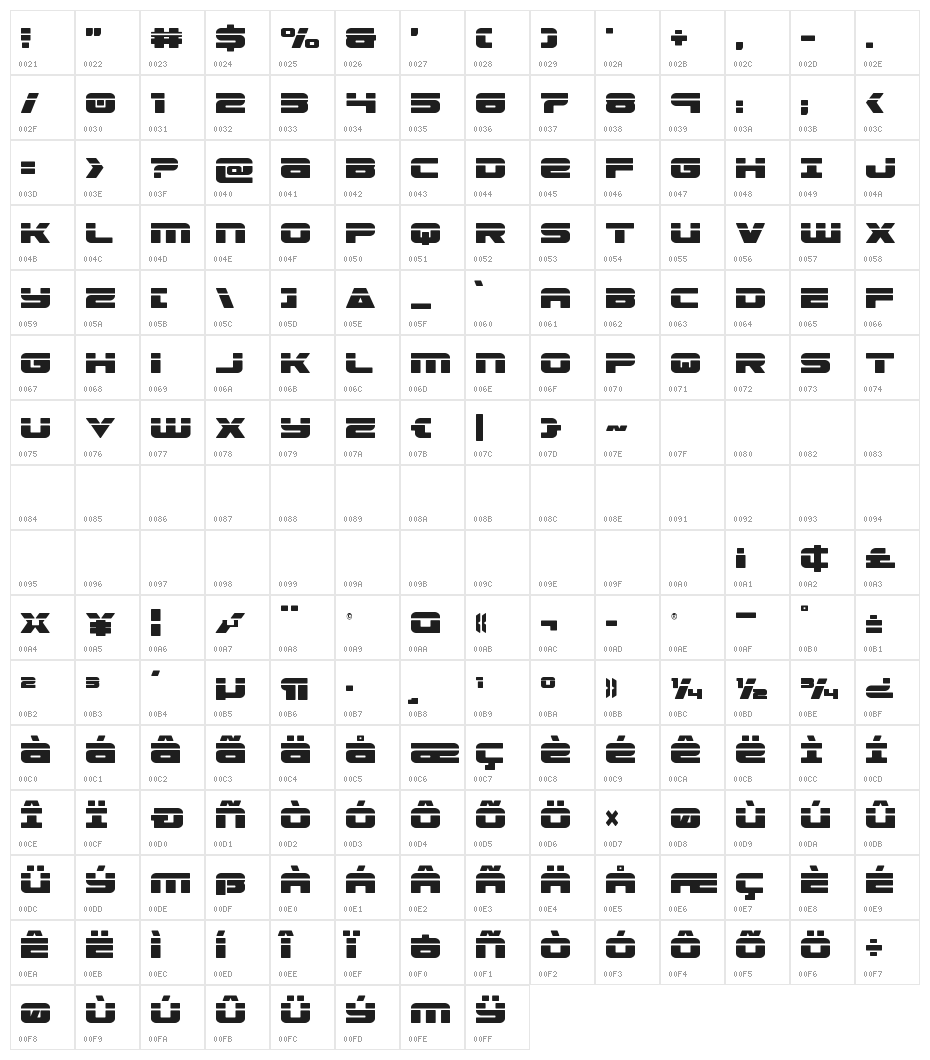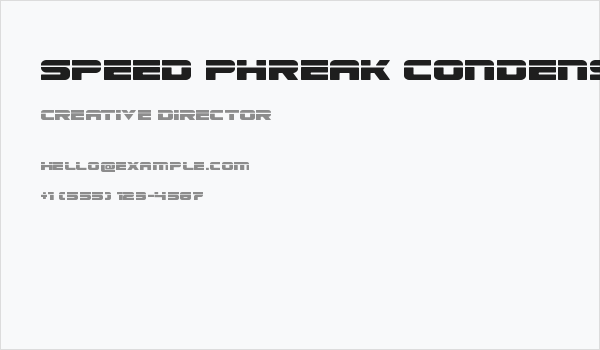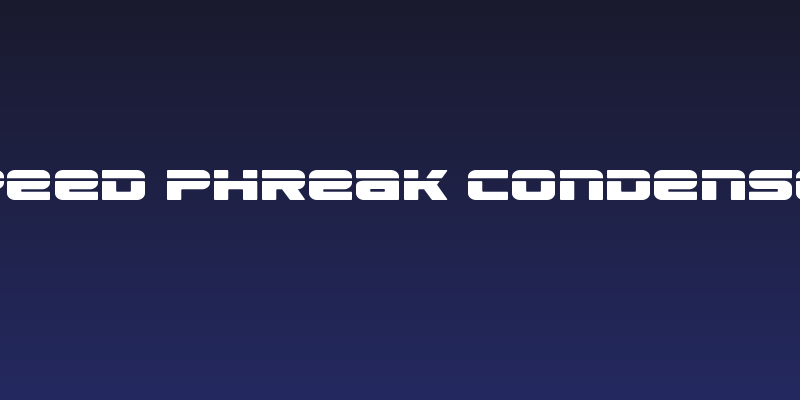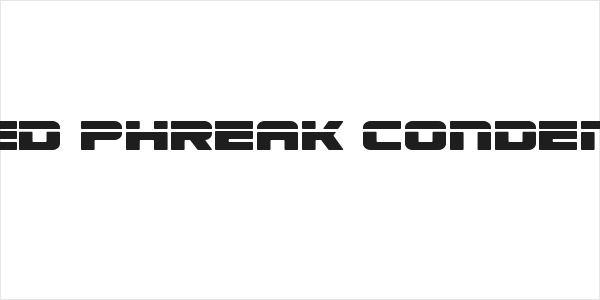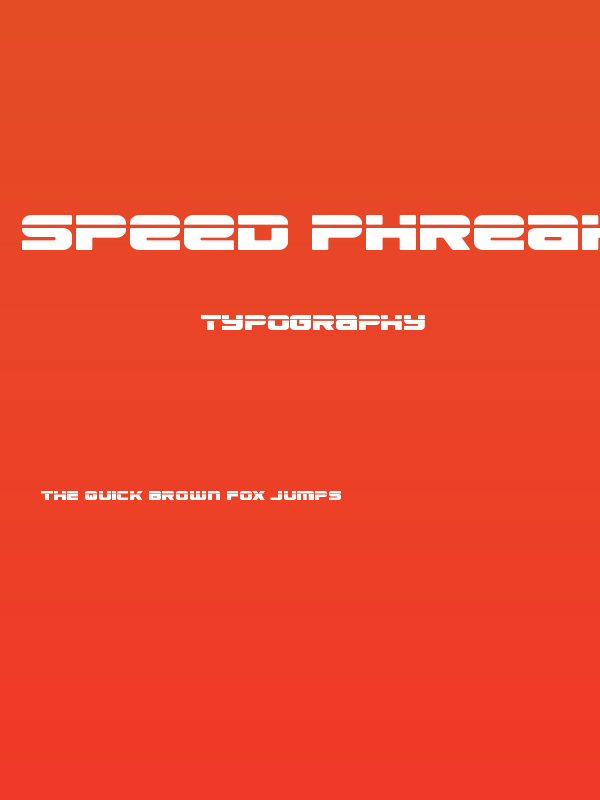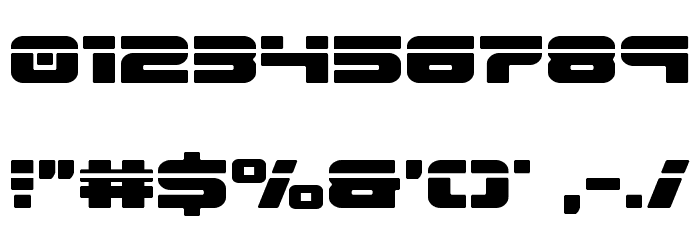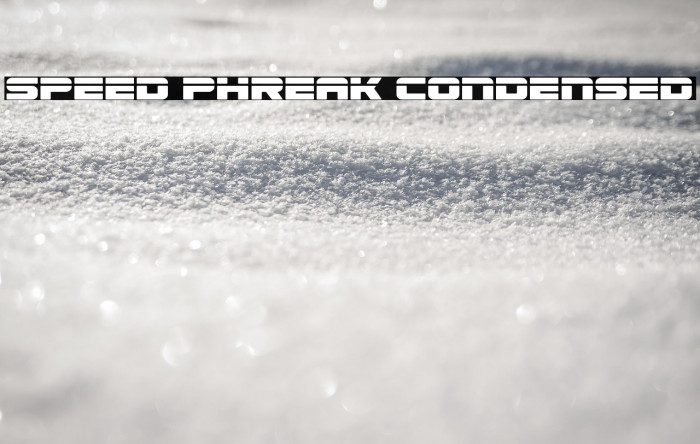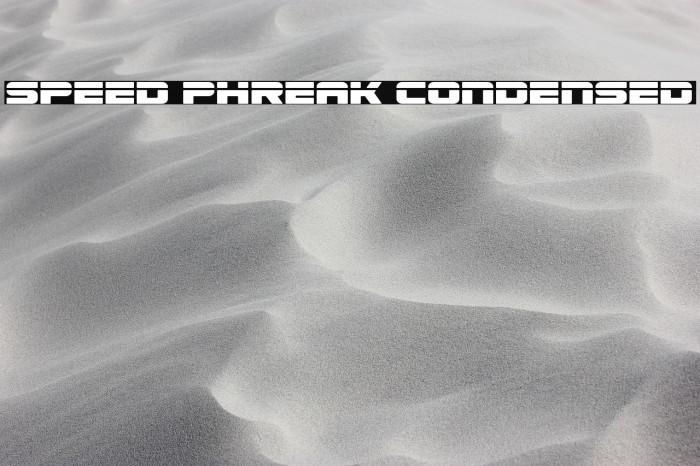
Speed Phreak Condensed Font
Speed Phreak Condensed Description
This font features a bold, futuristic design with a distinctly condensed style. The characters are geometric and blocky, with sharp angles and a uniform thickness that gives them a strong, impactful presence. The uppercase and lowercase letters maintain a consistent height, enhancing the condensed appearance. The numerals and special characters follow the same design principles, ensuring a cohesive look across all elements. This font's unique style makes it stand out, ideal for projects that require a modern and edgy aesthetic.